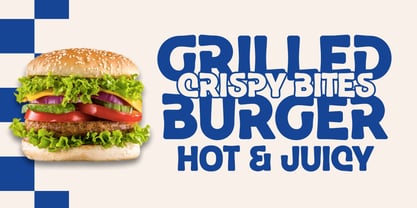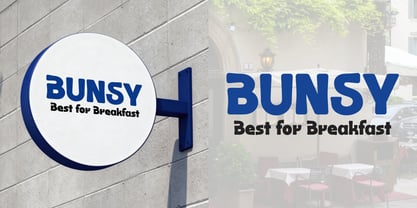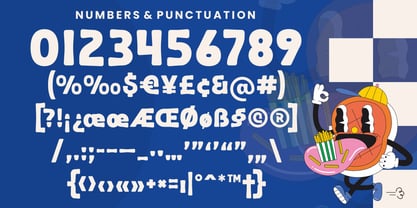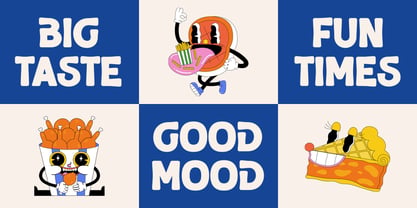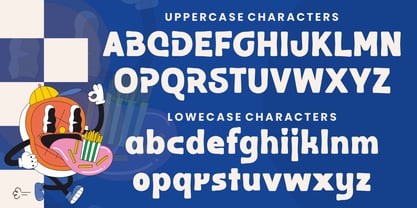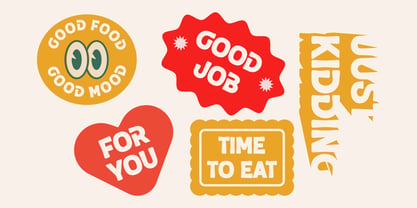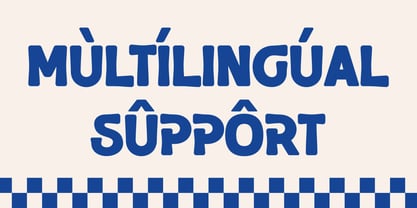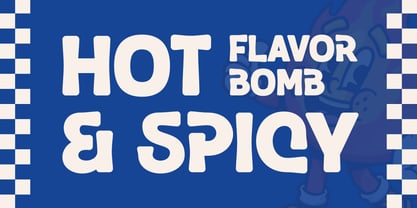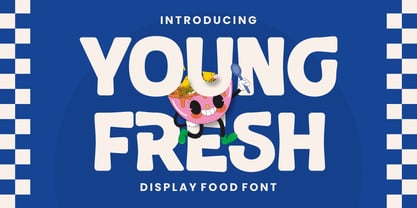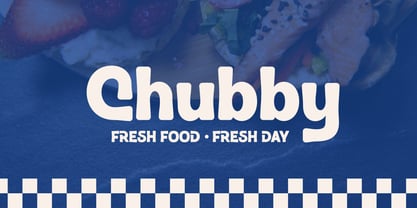
Young Fresh
Young Fresh is a bold and playful display font created to bring a cheerful personality to every design. Its chunky letterforms, soft curves, and slightly irregular shapes give the font a friendly appearance that instantly stands out.
Designed especially for food-inspired projects, Young Fresh adds a fresh and energetic character to headlines and promotional designs.
Features:
• Uppercase and lowercase letters
• Numerals and punctuation
• Multilingual support
• Bold and playful letterforms
Perfect for:
• Food and beverage logos
• Snack packaging
• Restaurant and café branding
• Menus and product labels
• Posters and advertisements
• Children’s products
• Social media content
• Headlines and merchandise
Bring a fresh, friendly, and delicious personality to your next project with Young Fresh.